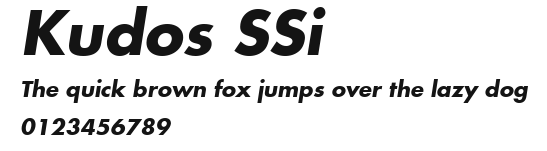
Kudos SSi Preview
• Font Name: Kudos SSi
• Full Font Name: Kudos SSi Bold Italic
About Kudos SSi.ttf
Kudos SSi.ttf is a modern, elegant sans-serif font designed for ultimate readability and visual harmony. Perfect for branding, headlines, web design, and print materials.